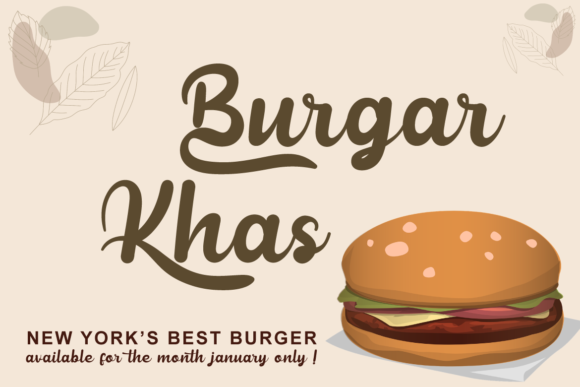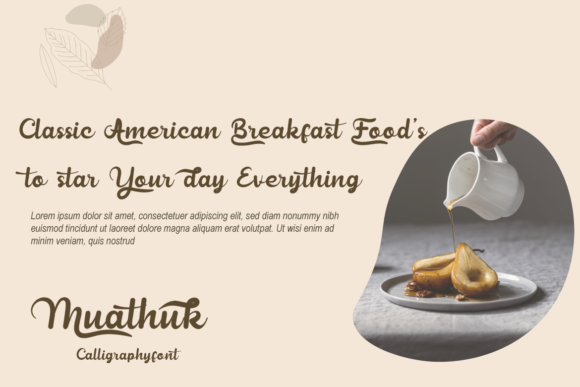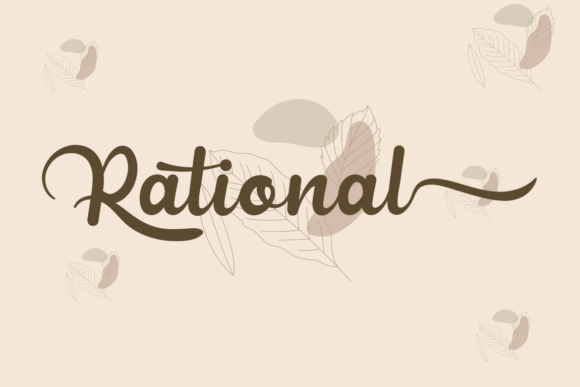
Introduction to Muathuk Font
Muathuk is an elegant and flowing script font.
It looks ravishing on wedding invitations, thank you cards, quotes, greeting cards, logos, business cards and every other design which needs a customized touch This font is PUA encoded which means you can access all of the glyphs and swashes with ease.
Key Features of Muathuk Font